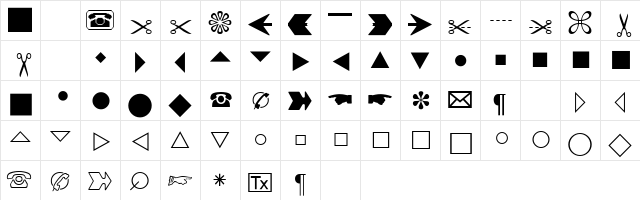
Abacus Three SSi Regular
Design Context for Abacus Three SSi Typeface
Abacus Three SSi takes a measured approach to typography — its balanced proportions and neutral character make it a reliable workhorse for both digital and print work.